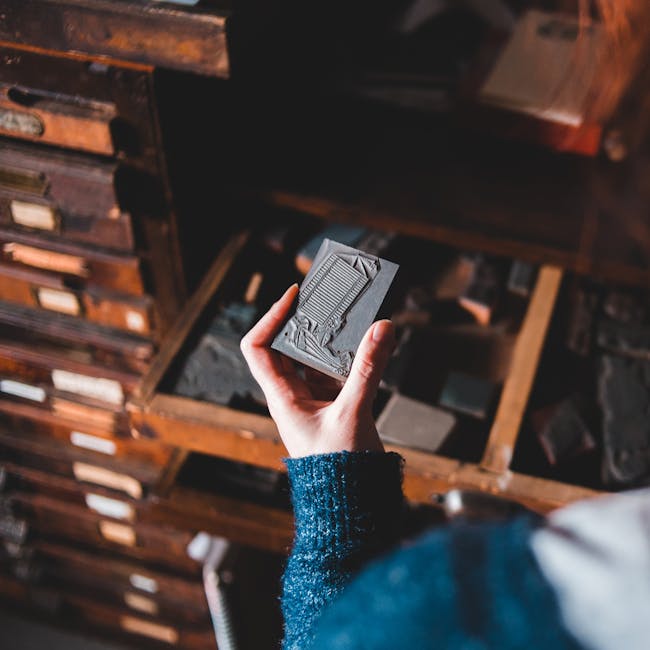
What is Letterpress Typeface?
In the world of design, the letterpress typeface stands out as a testament to the historical evolution of typography and its enduring relevance in contemporary branding and logo design. This age-old art form, known for its tactile beauty and vintage charm, continues to captivate designers and brands seeking a unique aesthetic. What makes letterpress typeface so fascinating, and why does it still matter today? Let’s explore its rich history, characteristics, and modern applications.
History of Letterpress Typeface
The story of letterpress typeface unfolds like a well-worn book, with chapters tracing back to the dawn of printing.
Invention and Early Use
The journey begins with Johannes Gutenberg in the mid-15th century. His invention of the movable type printing press revolutionized the way information was disseminated. For the first time, books could be mass-produced, making knowledge accessible to a broader audience. Gutenberg’s innovation laid the foundation for subsequent typeface design, setting a precedent for precision and readability.
Evolution Through the Ages
As time marched forward, so did the evolution of letterpress typefaces. During the Renaissance, type designers refined their techniques, bringing greater sophistication to their craft. The Baroque period introduced ornate typefaces that mirrored the grandeur of the time. These eras collectively contributed to a rich tapestry of styles, each reflecting the cultural and artistic movements of their day. The history of letterpress printing chronicles these transformations.
Transition to Modern Typography
The transition to modern typography was inevitable as technological advancements took hold. Letterpress typefaces evolved to meet the demands of modern printing techniques, influencing the development of digital fonts. Yet, the essence of letterpress—its tactile quality and visual depth—remained cherished among designers who valued tradition and craftsmanship.
Characteristics of Letterpress Typeface
What sets letterpress typeface apart from its digital counterparts? It’s a question of character, quite literally.
Material and Texture
Letterpress type is a physical entity, crafted from materials like wood and metal. This tangible quality imparts a distinct texture to the prints, a feature often sought after in an era dominated by flat, digital designs. The qualities of letterpress are evident in the sharpness and irregularity of its print, lending a unique charm that digital fonts strive to emulate.
Design Styles and Variations
Within the realm of letterpress, there’s a delightful array of design styles. Serif typefaces convey elegance and tradition, while sans-serif options bring a modern touch. Decorative typefaces, with their intricate details, add a creative flair to any design. This diversity allows designers to choose styles that align with their brand’s personality and message.
Applications of Letterpress Typeface in Modern Design
Even in today’s fast-paced digital world, the letterpress typeface holds a revered spot in modern design applications.
Brand Identity and Letterpress Typography
In branding, first impressions matter. The use of letterpress typeface in creating memorable brand identities is akin to a signature handshake—it’s unique and leaves a lasting impression. The tactile quality of letterpress communicates authenticity and craftsmanship, attributes highly valued by discerning consumers.
Print Media and Letterpress
There’s been a resurgence in interest for letterpress within print media. Invitations, business cards, and packaging benefit from the distinct look and feel of letterpress prints. The process adds an element of sophistication and timelessness, ensuring that printed materials stand out. Modern letterpress continues to find its niche in these tangible experiences.
The letterpress typeface is more than just a relic of the past; it’s a bridge between history and the modern design landscape. Its rich legacy and distinctive characteristics make it a valuable asset in branding and logo design, where creating lasting impressions is key. As we navigate an era dominated by digital innovation, the tactile beauty of letterpress reminds us of the power of tradition and craftsmanship in an ever-evolving world.